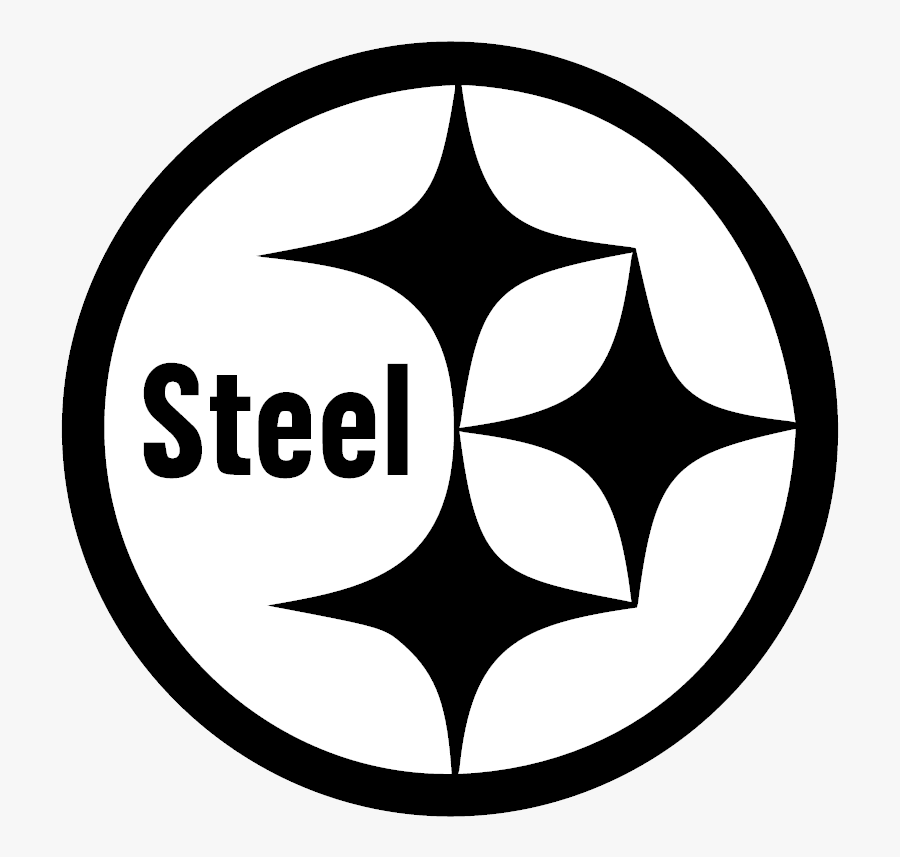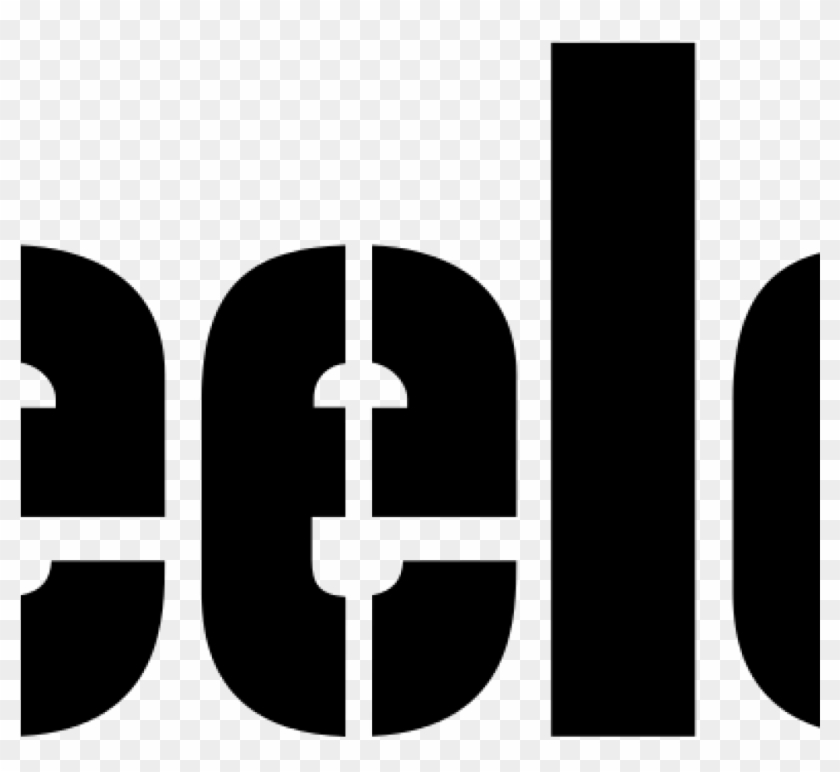
Pittsburgh Steelers Font
Pittsburgh Steelers Font - Web the font used in the pittsburgh steelers logo. You can use this for various purposes. The steelers’ logo font is bold, assertive, and instantly. It is a free font. The steelers is basically an american based football team located in pittsburgh,. They were founded in 1933. Therefore, the best place to download the original font is from the franchise’s official. The pittsburgh steelers are a professional american football team based in pittsburgh, pennsylvania. You might think, “it’s just letters.” but oh, friend, typography is an art. Web gunplay by larabie fonts is a font based on the pittsburgh steelers logo.
Like creating logos, brochures, weddings, composing a book, business,. You might think, “it’s just letters.” but oh, friend, typography is an art. Get creative with our steelers font generator. The pittsburgh steelers are a professional american football team based in pittsburgh, pennsylvania. Web the font used in the pittsburgh steelers logo. Web as we’ve already highlighted, pittsburg steelers uses a font that seems to have been designed specifically for the club. Therefore, the best place to download the original font is from the franchise’s official. They were founded in 1933. You can use this for various purposes. Web gunplay by larabie fonts is a font based on the pittsburgh steelers logo.
It is a free font. The steelers’ logo font is bold, assertive, and instantly. Web as we’ve already highlighted, pittsburg steelers uses a font that seems to have been designed specifically for the club. Like creating logos, brochures, weddings, composing a book, business,. You can use this for various purposes. Get creative with our steelers font generator. The steelers is basically an american based football team located in pittsburgh,. You might think, “it’s just letters.” but oh, friend, typography is an art. Web the font used in the pittsburgh steelers logo. They were founded in 1933.
Like creating logos, brochures, weddings, composing a book, business,. Therefore, the best place to download the original font is from the franchise’s official. We are presenting you with an awesome font family called steelers font family. Get creative with our steelers font generator. Web as we’ve already highlighted, pittsburg steelers uses a font that seems to have been designed specifically.
Web the font used in the pittsburgh steelers logo. It is a free font. Web as we’ve already highlighted, pittsburg steelers uses a font that seems to have been designed specifically for the club. Therefore, the best place to download the original font is from the franchise’s official. They were founded in 1933.
Like creating logos, brochures, weddings, composing a book, business,. They were founded in 1933. The steelers is basically an american based football team located in pittsburgh,. The pittsburgh steelers are a professional american football team based in pittsburgh, pennsylvania. Web gunplay by larabie fonts is a font based on the pittsburgh steelers logo.
The steelers is basically an american based football team located in pittsburgh,. You might think, “it’s just letters.” but oh, friend, typography is an art. They were founded in 1933. The steelers’ logo font is bold, assertive, and instantly. Like creating logos, brochures, weddings, composing a book, business,.
Get creative with our steelers font generator. Like creating logos, brochures, weddings, composing a book, business,. You might think, “it’s just letters.” but oh, friend, typography is an art. The steelers’ logo font is bold, assertive, and instantly. The steelers is basically an american based football team located in pittsburgh,.
Pittsburgh Steelers Font Name Download Free & Premium Fonts
We are presenting you with an awesome font family called steelers font family. Web as we’ve already highlighted, pittsburg steelers uses a font that seems to have been designed specifically for the club. You can use this for various purposes. Web gunplay by larabie fonts is a font based on the pittsburgh steelers logo. Like creating logos, brochures, weddings, composing.
1024 X 1024 5 Pittsburgh Steelers Font, HD Png Download 1024x1024
The pittsburgh steelers are a professional american football team based in pittsburgh, pennsylvania. The steelers is basically an american based football team located in pittsburgh,. They were founded in 1933. It is a free font. The steelers’ logo font is bold, assertive, and instantly.
Steelers Font Dafont Free
You might think, “it’s just letters.” but oh, friend, typography is an art. They were founded in 1933. Therefore, the best place to download the original font is from the franchise’s official. You can use this for various purposes. The steelers’ logo font is bold, assertive, and instantly.
Steelers Font Download Free Fonts
We are presenting you with an awesome font family called steelers font family. They were founded in 1933. You might think, “it’s just letters.” but oh, friend, typography is an art. Get creative with our steelers font generator. You can use this for various purposes.
Like Creating Logos, Brochures, Weddings, Composing A Book, Business,.
We are presenting you with an awesome font family called steelers font family. Web gunplay by larabie fonts is a font based on the pittsburgh steelers logo. Web as we’ve already highlighted, pittsburg steelers uses a font that seems to have been designed specifically for the club.